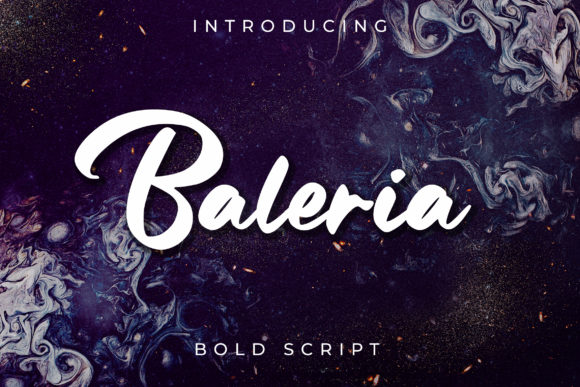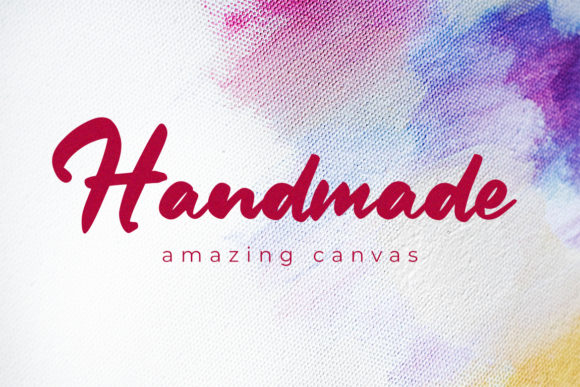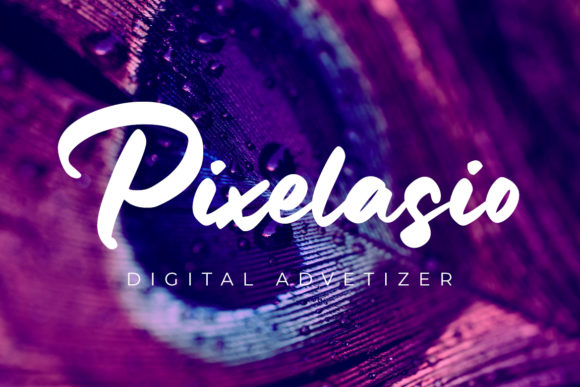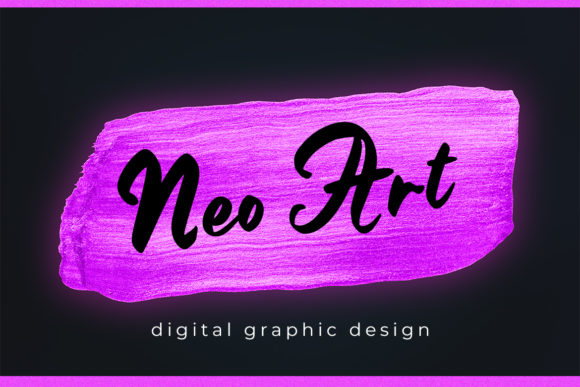
Baleria Font
About Baleria Font
Baleria is a sweet and charming handwritten font with simple swashes. It will make a great addition to any font collection!